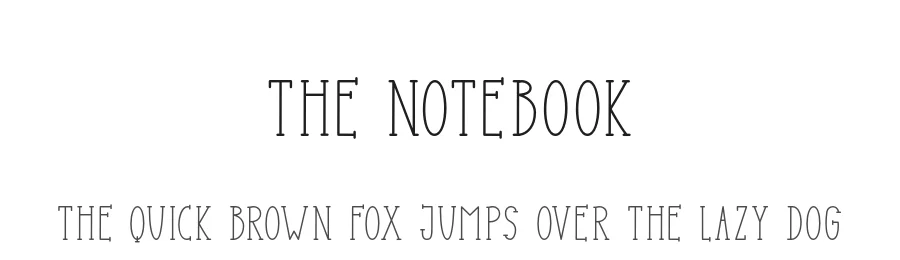
About Trump24 Font
Trump24 is a display font. It includes 73 glyphs, a medium weight, TTF (TrueType) format, and 91 languages. Trump24 is free to download; check the license details on this page before commercial use. Display fonts like Trump24 work best for logos, posters, headlines, and eye-catching social media graphics.
Trump24 supports 91 languages.
Trump24 Font is a display font that shines as a display or heading face. Pair it with a clean sans-serif or serif font for body text โ the contrast creates a clear hierarchy while the two styles stay balanced and easy to read.
Trump24 Font
Trump24 Font is a display typeface, ideal for logos, invitations, branding, and creative projects.